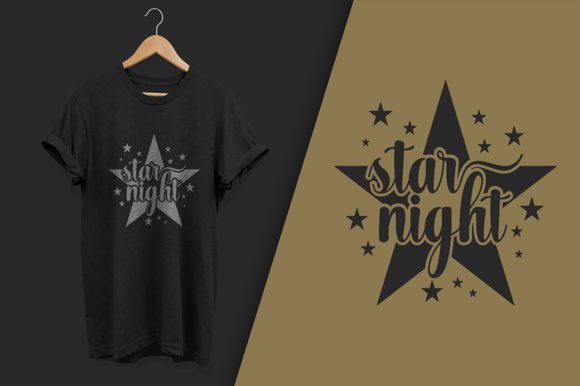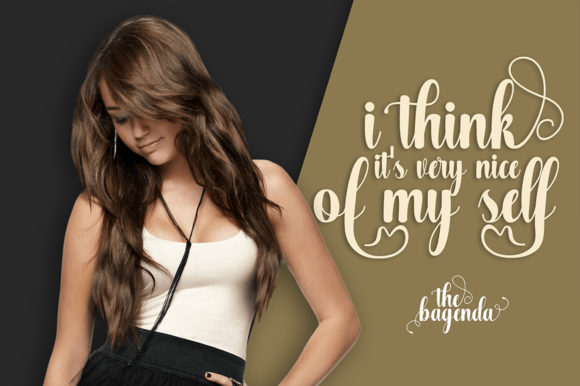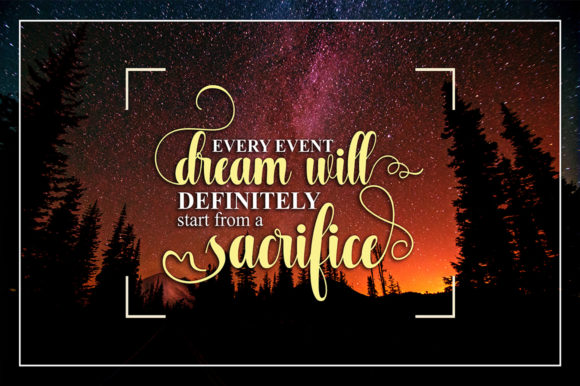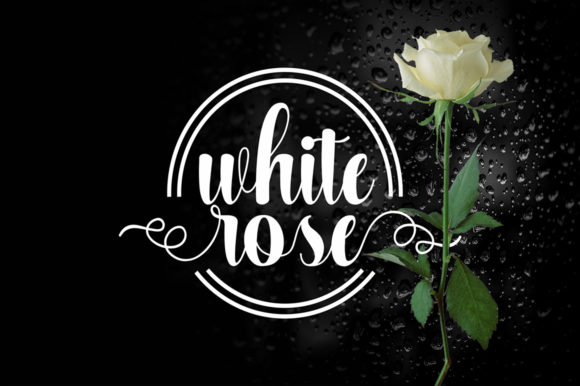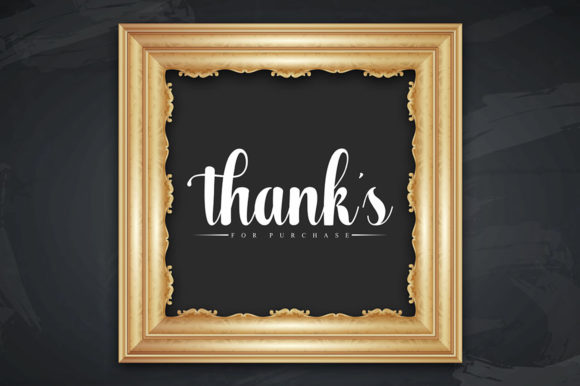
HomeScript FontsThe Bagenda Font Script Fonts The Bagenda Font FacebookXPinterestWhatsApp The Bagenda Font Poster 2 The Bagenda Font Poster 3 The Bagenda Font Poster 4 The Bagenda Font Poster 5 The Bagenda Font Poster 6 About The Bagenda Font The Bagenda is a modern calligraphy font. It has unique forms of calligraphy and a natural writing style. DOWNLOAD ON CREATIVE FABRICAThis font is sold and delivered by Creative Fabrica. Font Canyon may earn a commission if you buy through this link. People also explored Highland Font Catchy Bellonia Font Boldie Karina Font Nutricional Font Romantic Austine Font Cute Font Donut Font Rose Quartz Font 362 0 TagsThe Bagenda Font Previous articleRafflesian Poem FontNext articleAntero Font LEAVE A REPLY Cancel reply Comment: Please enter your comment! Name:* Please enter your name here Email:* You have entered an incorrect email address! Please enter your email address here Website: Save my name, email, and website in this browser for the next time I comment. Personal Use Free Ammanda Personal Use Free Read more about this font Bakk Trieng Personal Use Free Read more about this font Vincent Familiante Personal Use Free Read more about this font Blue Highway Personal Use Free Read more about this font BLOG How to Install and Use Fonts on Windows, macOS, and Web Projects How to Install and Use Fonts on Windows, macOS, and Web Projects Fonts are a crucial part of design and branding. Whether you’re designing a... Where to Buy American Fonts Online in 2024 Exploring Font Trends 5 Fonts That Will Dominate Design Trends in 2026